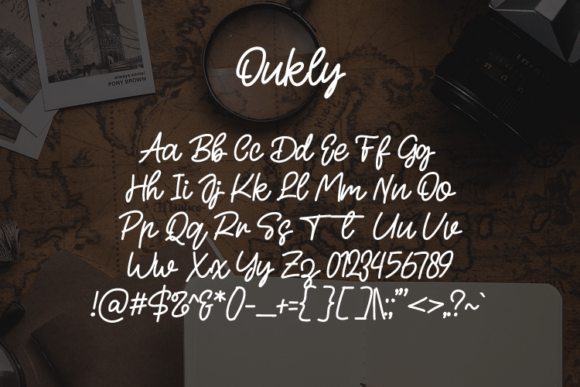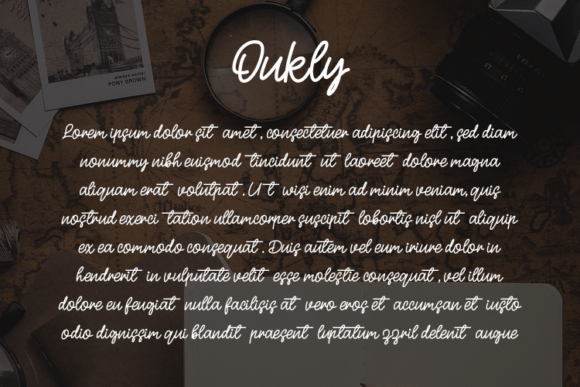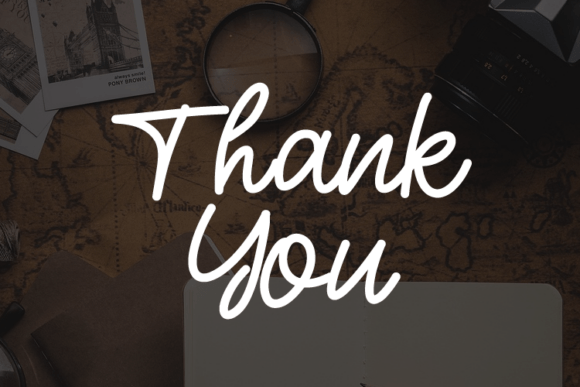
Introduction to Oukly Font
Have you ever been stuck in a creative rut, staring at a blank page, desperately searching for the perfect font to bring your project to life? It’s a moment we’ve all been there, and it’s where the Oukly Font comes in – a modern and elegant typeface designed for flexibility and excellent readability across a wide range of media.
Key Features of Oukly Font
- High-quality design: Oukly Font offers a unique and stylish design perfect for creative projects, making it an excellent addition to any design resource.
- Unique characteristics: Oukly Font features a distinctive and modern design, making it stand out from more traditional fonts and adding a touch of creativity to any project.
Honest Review: Oukly Font
As a designer, I’m always on the lookout for high quality design resources to enhance my creative projects. Recently, I stumbled upon the Oukly Font, and I’m excited to share my honest review with you.
Here’s what works well: ✨ The Oukly Font is free to download, making it an excellent addition to any designer’s collection. The font is versatile and can be used for a wide range of creative projects, from logos to digital displays. Its transparent background also makes it easy to use on various backgrounds.
However, there are a few limitations: ⚠️ The font library is relatively small, which may limit its use for more complex designs. Additionally, the font may not be suitable for use in print materials, as its legibility may not be as clear as other fonts.
Overall, I’m impressed with the Oukly Font. Its high quality and versatility make it a great design resource for designers working on creative projects. While it may have some limitations, it’s definitely worth considering for your next design project.
- Flexible for digital use
How to Use Oukly Font
Tips for Getting the Most Out of Oukly Font
Experiment with different font sizes, colors, and styles to find the perfect combination for your design. Use Oukly Font in conjunction with other design elements to create a cohesive look. Consider using Oukly Font in a variety of creative projects, from logos to social media graphics.
Oukly Font is commonly used in graphic design, logo creation, and social media graphics. Its high quality design makes it an excellent choice for any creative project. You can also use Oukly Font in presentations, documents, and other design materials.